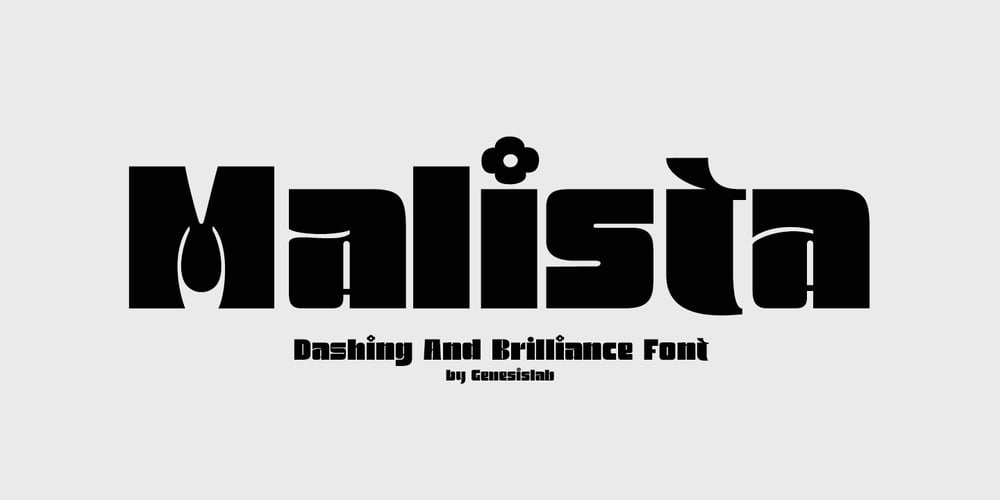
Malista Font Family was designed by Bustami Harun and published by Genesislab. Malista contains 6 styles and family package options. Malista is a large yet elegant Family display font. The unique and creative character according to today’s style will be very interesting for you to create any design work with a classy model while still maintaining a calm and classy style to look at.You’re sure to have inspiration to match your creativity!Multilingual Support.LigaturePounding. Malista . Malista Italic. Malista Italic Outline . Malista Outline. Malista Rounde . Malista Rounde Italic Don’t delay any longer to download quality goods only here.Thank You